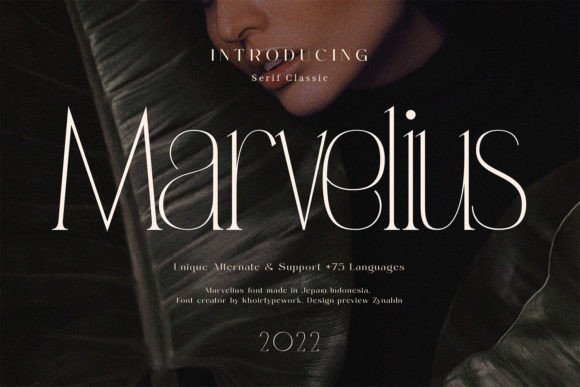
**Marvelius: The Pinnacle of Serif Elegance for Unforgettable Logos**
In a world saturated with visual clutter, your brand's logo must possess an inimitable charm to captivate attention and leave an enduring impression. Enter Marvelius, the crown jewel of serif fonts, meticulously crafted to elevate your designs to the realm of sophistication and distinction.
Step into the realm of Marvelius, a font family that exudes elegance and modernity, leaving an indelible mark on the hearts of those who behold it. Its carefully chiseled strokes, reminiscent of timeless engravings, evoke a sense of luxury and refinement that sets your brand apart from the mundane.
With Marvelius, you hold the key to unlocking a design aesthetic that speaks of timeless sophistication. Its graceful curves and sharp serifs create a visual symphony, drawing eyes to your logo and inviting them to linger. Elevate your brand's identity with this font that embodies the essence of understated luxury.
**Marvelius: A Masterpiece for YouTube Logos That Ignite Engagement**
In the fiercely competitive landscape of YouTube, your channel's logo serves as your digital ambassador, beckoning viewers to embark on a journey of entertainment and enlightenment. Marvelius, with its innate allure, possesses the power to transform your logo into a captivating beacon, drawing audiences into your vibrant world of content.
Marvelius's inherent charm lies in its versatility, effortlessly adapting to a myriad of design styles. Whether your channel delves into the realms of beauty, fashion, travel, or technology, this font seamlessly blends with your vision, creating a logo that exudes professionalism and creativity.
With Marvelius adorning your YouTube logo, you'll witness a surge of engagement and loyalty among your audience. Its timeless elegance inspires trust and credibility, encouraging viewers to immerse themselves fully in your content. Experience the transformative power of Marvelius and watch your channel flourish into a thriving community.
**Marvelius: A Creation of mrkhoir012, the Visionary Font Architect**
Marvelius is the brainchild of mrkhoir012, a visionary font designer renowned for his artistic prowess and unwavering dedication to creating typographic masterpieces. With Marvelius, he has poured his heart and soul into crafting a font that transcends mere aesthetics, becoming a true work of art.
Each stroke, each curve, each serif in Marvelius bears the hallmarks of mrkhoir012's meticulous attention to detail and his innate understanding of the power of typography. This font is not just a collection of letters; it's a testament to the transformative ability of design to elevate, inspire, and captivate.
When you choose Marvelius, you're not simply acquiring a font; you're embarking on a journey with a master craftsman, a journey that leads to the creation of a logo that will stand the test of time, a logo that will become synonymous with your brand's excellence.